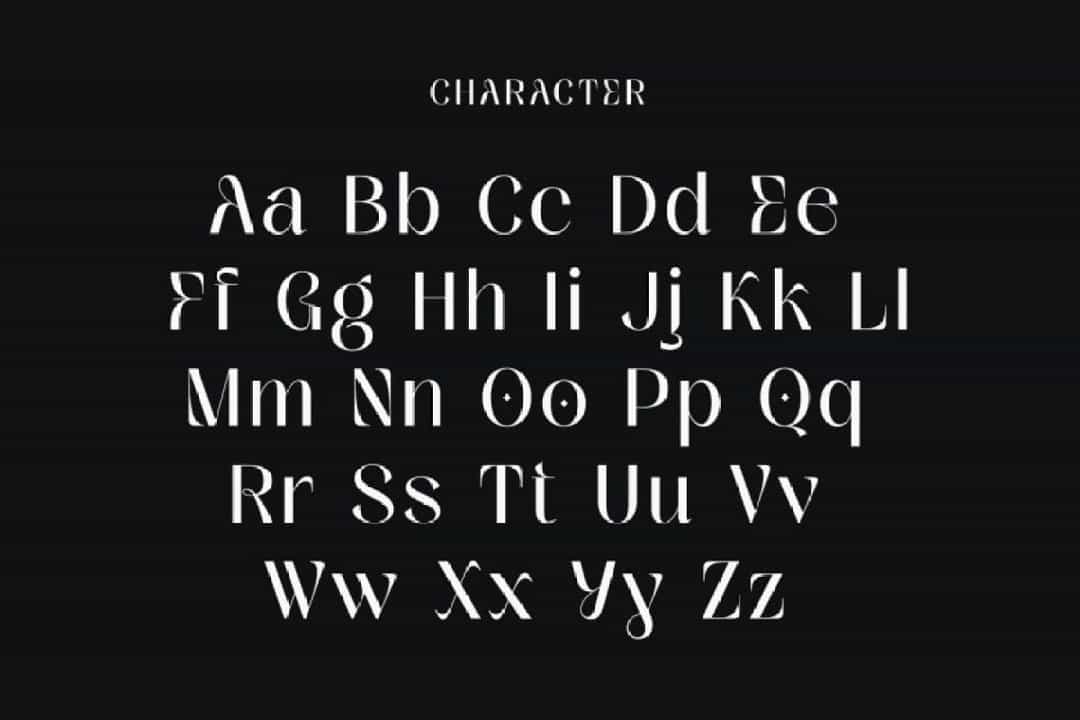
Roygen Display It is an elegant sans serif font designed to bring sophistication and refinement into designs. Specifically suited for those seeking an eye-catching and modern feel in their designs.